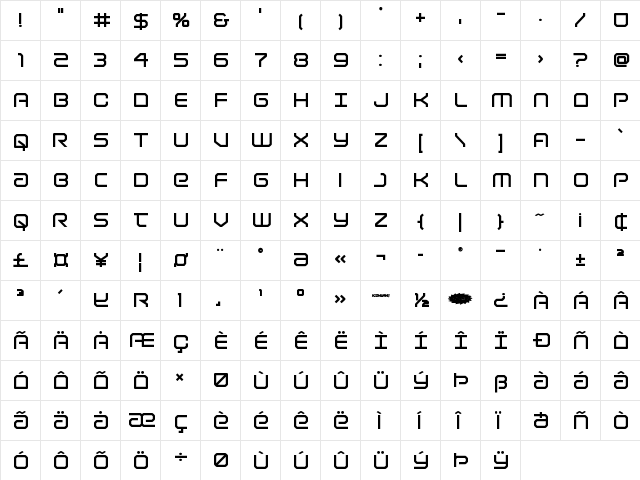
Light Brigade Bold Bold
Design Context for Light Brigade Bold Typeface
Light Brigade Bold takes a measured approach to typography — its balanced proportions and neutral character make it a reliable workhorse for both digital and print work. The heavy weight commands attention and anchors typographic hierarchies.